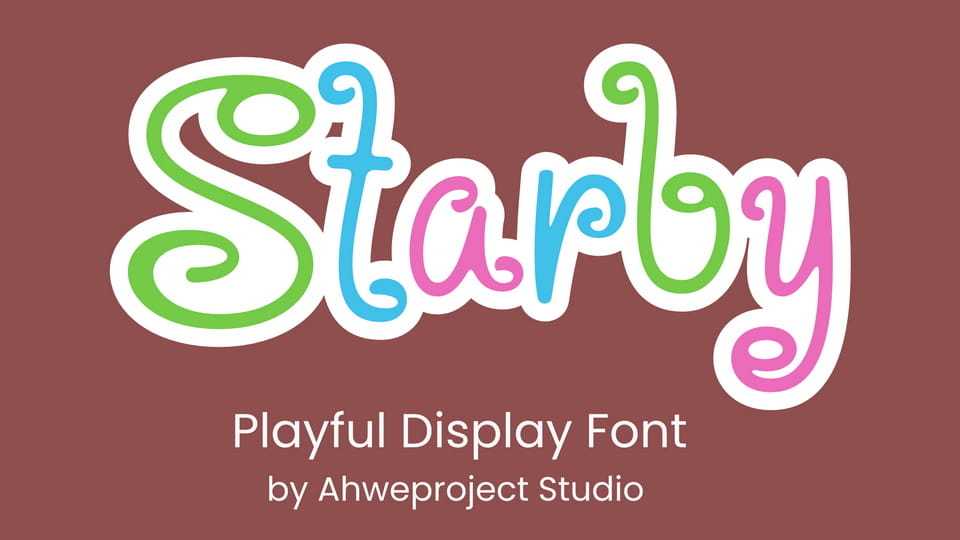
Download Starby font, a colorful and playful display typeface designed to capture attention and spark imagination. With its curly swirls, bold strokes, and cheerful vibe, Starby is perfect for kid-themed projects,